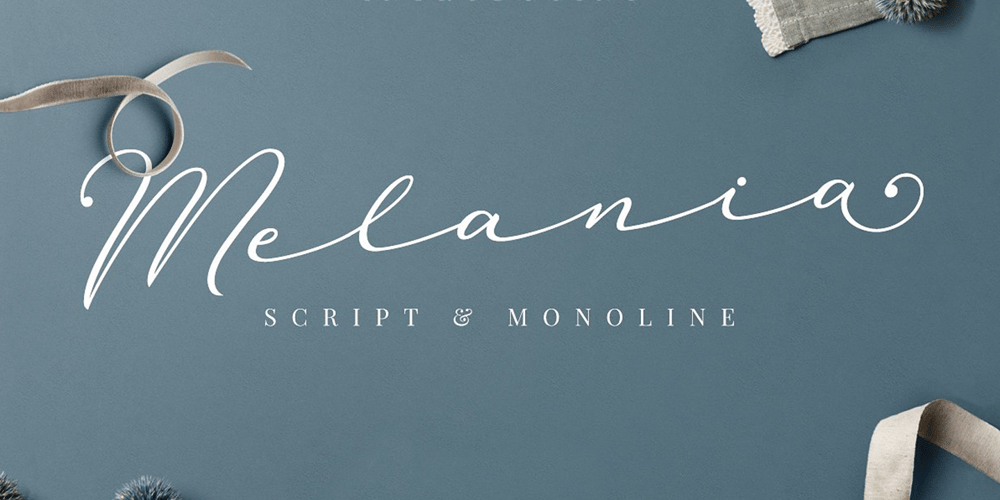
Melania Font Family was designed by Hendry Juanda and published by Letterhend. Melania contains 3 styles and family package options. Melania is a script font that is created by natural hand writing and gives you the feminine touch that you’ve been looking for. The irregular spacing brings the personal and unique feels which is very suitable for signatures, wedding invitations, fashions, headlines, quotes, and more. It also comes in uppercase, lowercase, punctuations, symbols & numerals, stylistic set alternates, ligatures, and more, as well as including multi-lingual support. This font have 2 styles: Script and Monoline. The Script version gives you feel the brush stroke with thin and thick.The Monoline version gives you the consistency feel on every stroke, so it only has one weight from start to end, no weight difference.